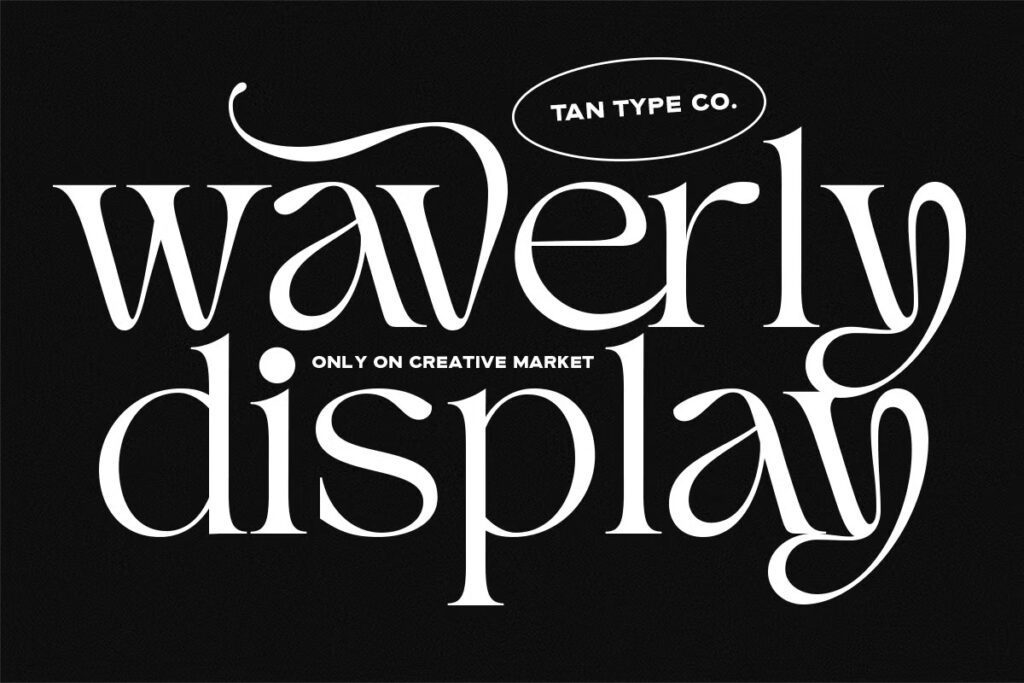
Introducing TAN – WAVERLY: The Elegant Serif Typeface for Your Creative Projects
Looking to add a touch of elegance and sophistication to your designs? Meet TAN – WAVERLY, an exquisite serif typeface that combines graceful shapes with subtle quirks. Whether you’re working on branding, editorial layouts, or digital designs, TAN – WAVERLY offers a wealth of creative possibilities.
Why Choose TAN – WAVERLY?
1. Elegant Design with Unique Quirks TAN – WAVERLY strikes the perfect balance between elegance and uniqueness. With its thoughtfully crafted ligatures and glyphs, it adds personality to your typography while maintaining a polished, sophisticated appearance.
3. Multilingual Support TAN – WAVERLY includes multilingual support, making it perfect for global projects. You can create elegant designs that resonate with diverse audiences, ensuring that your work stands out across different languages and regions.
TAN – WAVERLY is an excellent choice for designers seeking a versatile and elegant serif typeface. With its unique ligatures, glyphs, and graceful appearance, this font is sure to elevate your branding, editorial, and digital design projects to new heights. Whether you’re crafting wedding invitations, logos, or editorial spreads, TAN – WAVERLY brings the perfect blend of beauty and functionality to your work.